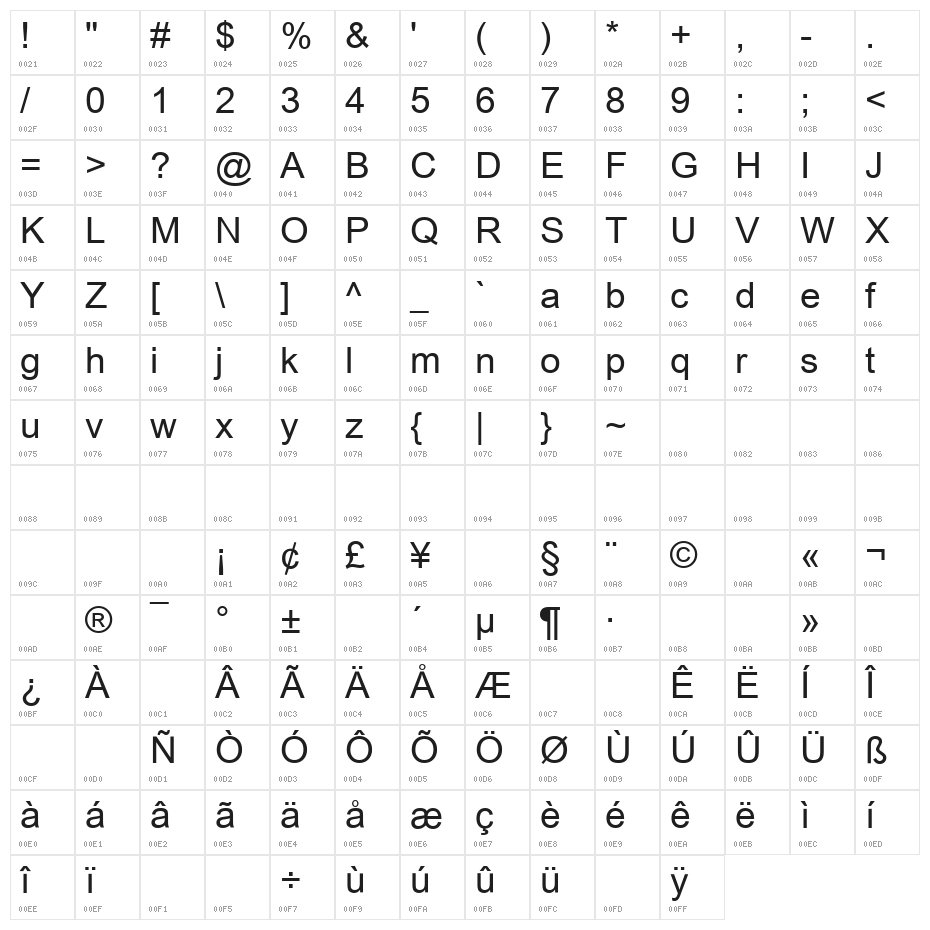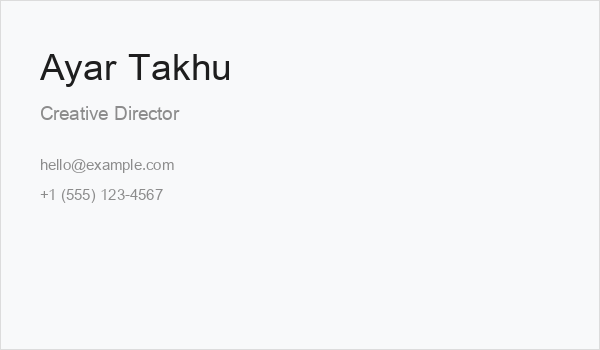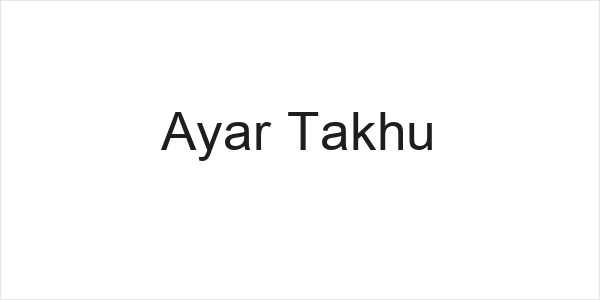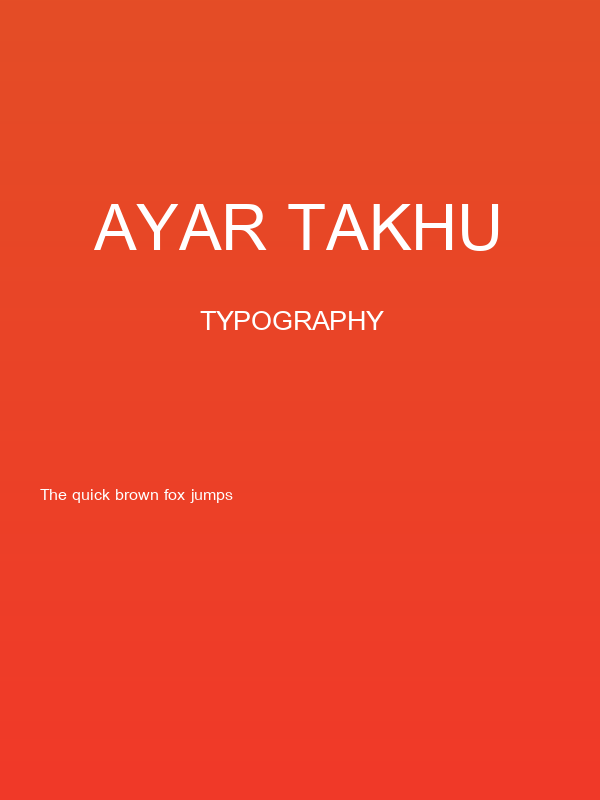
Ayar Takhu Font
Ayar Takhu Description
This font features a clean and modern sans-serif design, characterized by its uniform stroke width and geometric shapes. The uppercase letters are bold and assertive, while the lowercase letters maintain a consistent and harmonious appearance. The numerals are clear and easy to read, making them suitable for various applications. Special characters are well-defined, adding versatility to the font's usage. The overall design is minimalistic, focusing on readability and simplicity, which makes it ideal for both digital and print media.